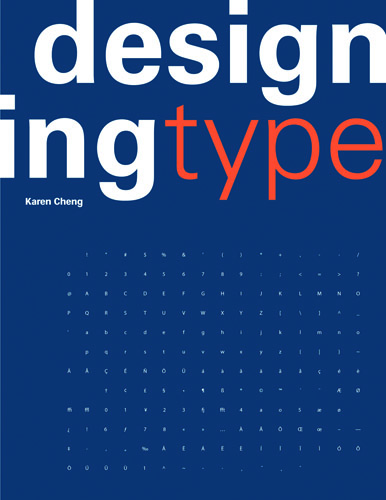
Designing Type
The lack of a specific and comprehensive guide to type design has long been a frustration for typographers, graphic designers and students. Designing Type finally addresses this important need – and brings new depth and insight to the art and process of developing a typeface. Copiously illustrated with type specimens and diagrams demonstrating visual principles and letter construction, the book discusses structure, optical compensation and legibility, with emphasis on the often overlooked systematic relationships between letters and shapes in a font. A wide range of classic and contemporary typefaces are analysed, and examples of student work, progress sketches and final type designs are used to demonstrate core issues. In the light of the rapidly broadening market for original and custom typefaces, Designing Type is a valuable reference for both experienced professionals and novice designers.